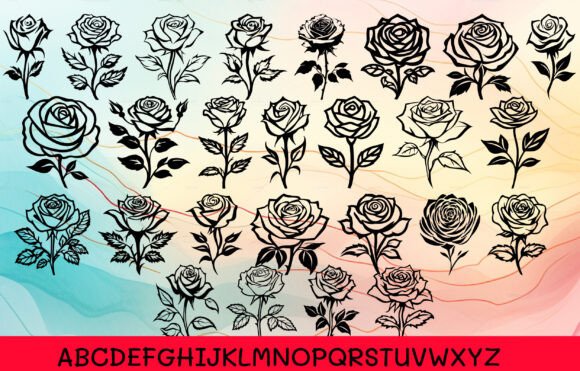
Introduction to Rose for Valentine Font
Rose For Valentine Dingbats Fonts features 26 unique rose-inspired designs, each representing a letter from A to Z.
Perfect for adding a romantic and elegant touch to your creative projects, this font is ideal for Valentineโ€™s Day cards, wedding invitations, crafts, and love-themed designs .
Key Features of Rose for Valentine Font
Why Choose Rose for Valentine Font?
Rose for Valentine Font offers exceptional quality and versatility, making it a valuable addition to your design toolkit. Whether you’re creating for personal projects or commercial use, Rose for Valentine Font delivers professional results.